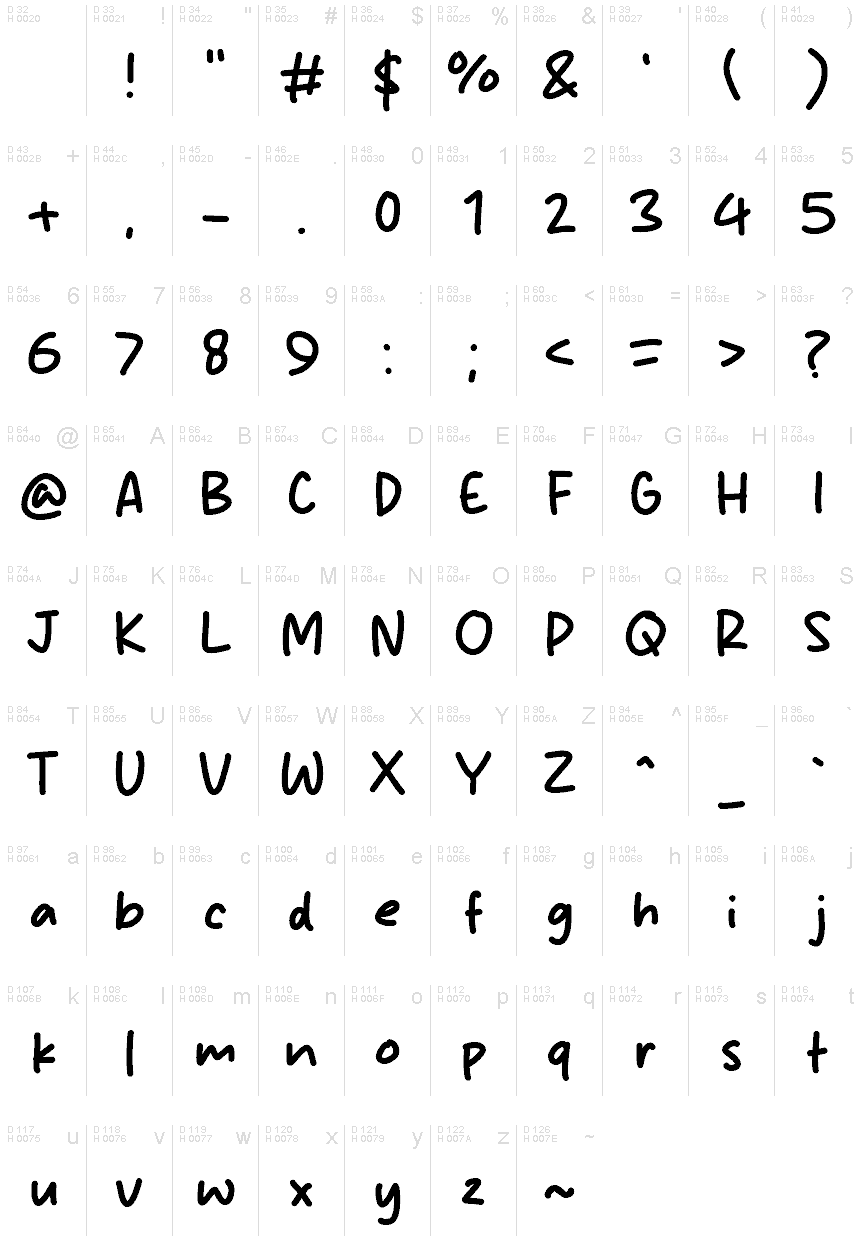
Cute Cat
Cute Cat font, created by MJType, is a casual script with a handwritten feel that evokes a relaxed vibe and modern aesthetic. This delightful font captures an engaging and playful essence, making it perfect for projects that aim to convey warmth and approachability. The cheerful nature of this design projects a lively and friendly character.
As a free handwritten font, it is ideal for children’s books, informal branding, stationery design, posters, invitations, and social media content. Incorporating it into greeting cards or personalized merchandise can enhance the charm and connection with the audience. Its versatility makes it a lovely choice for any project requiring an approachable tone.